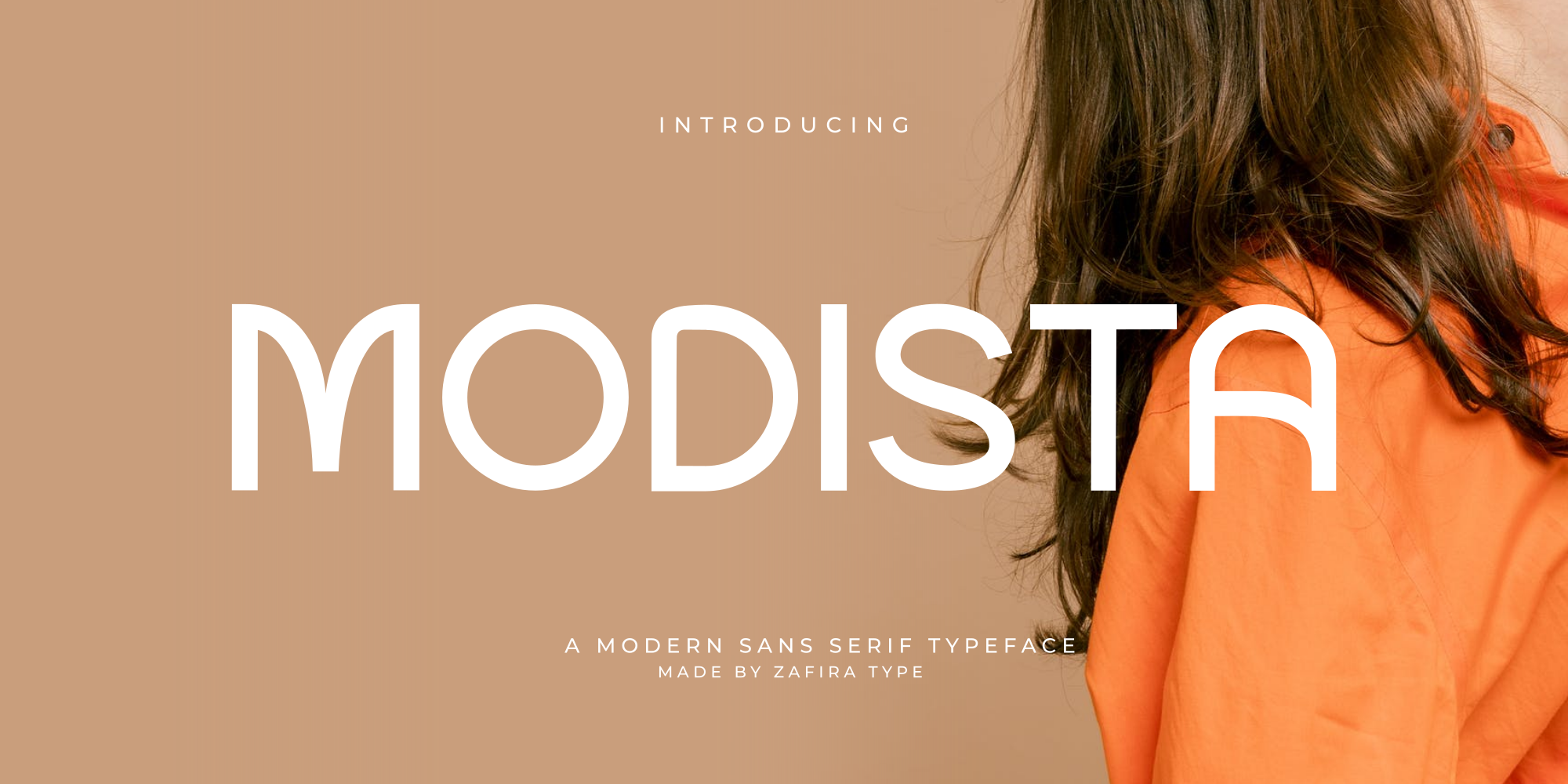
This modern sans-serif typeface is perfect for branding, logos, wedding designs, social media posts, product packaging, and advertising.
The Modista Font is exciting because its clean, geometric design with sharp lines offers a sleek, contemporary aesthetic, ensuring versatility and readability in any project.
Its font family includes Modista Regular, Modista Bold, Modista Light, and Modista Italic, providing versatile options for creative applications.
Looking for a font that blends modern style with exceptional functionality? Modista Font Free Download is an ideal choice for designers seeking a sleek, versatile typeface. Crafted by Zafira Type in 2023, this sans-serif font features clean lines and balanced proportions, making it perfect for a wide range of design projects. Whether you’re a graphic designer, marketer, or content creator, the Modista Font delivers a polished, professional look, ideal for both digital and print media. Its futuristic and edgy style elevates designs to new heights.
The Modista Font excels in various applications requiring readability and modern appeal. It’s a top choice for branding projects, such as logos for startups or boutique businesses, where its geometric design conveys sophistication. Wedding invitations benefit from its elegant, minimalist aesthetic, while social media creators use it for striking Instagram posts, TikTok overlays, or YouTube thumbnails to boost engagement. Product packaging for cosmetics, tech gadgets, or artisanal goods leverages its clean look, and advertising materials like posters and banners gain a contemporary edge with its sharp design. Its versatility ensures seamless integration across diverse projects.
What makes the Modista Font Free Download so captivating is its combination of clarity and modern flair. With a wide range of ligatures and alternates, it offers creative flexibility in tools like Adobe Illustrator or InDesign, allowing designers to customize typography effortlessly. Its legible letterforms ensure readability even at smaller sizes, making it suitable for both headlines and body text. Supporting multiple languages, including Basic Latin and Latin-1 Supplement, it’s ideal for global branding. This font’s sleek, futuristic vibe makes it a standout for trendsetting designs.
The Modista Font family includes Modista Regular for balanced text, Modista Bold for impactful headlines or logos, Modista Light for delicate accents, and Modista Italic for dynamic emphasis in captions or quotes. This range ensures designers can create cohesive, visually appealing projects across applications. For web use, it supports @font-face embedding, making it easy to integrate into websites for a consistent look.